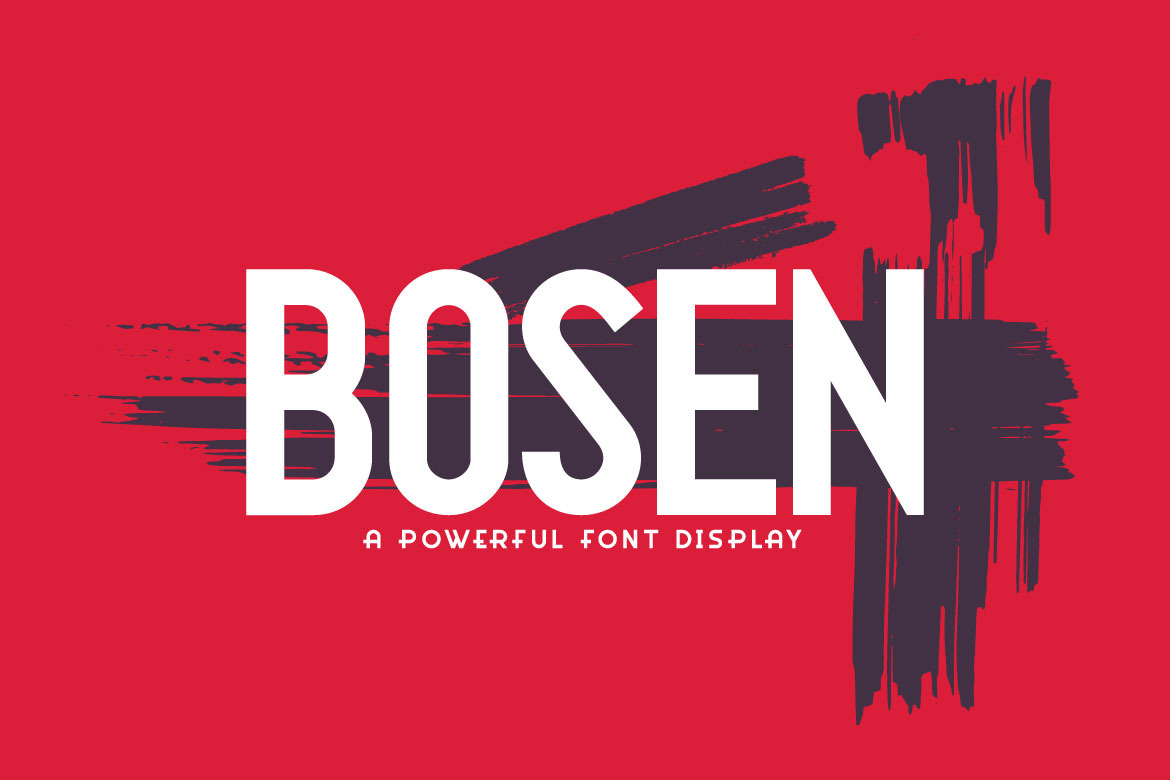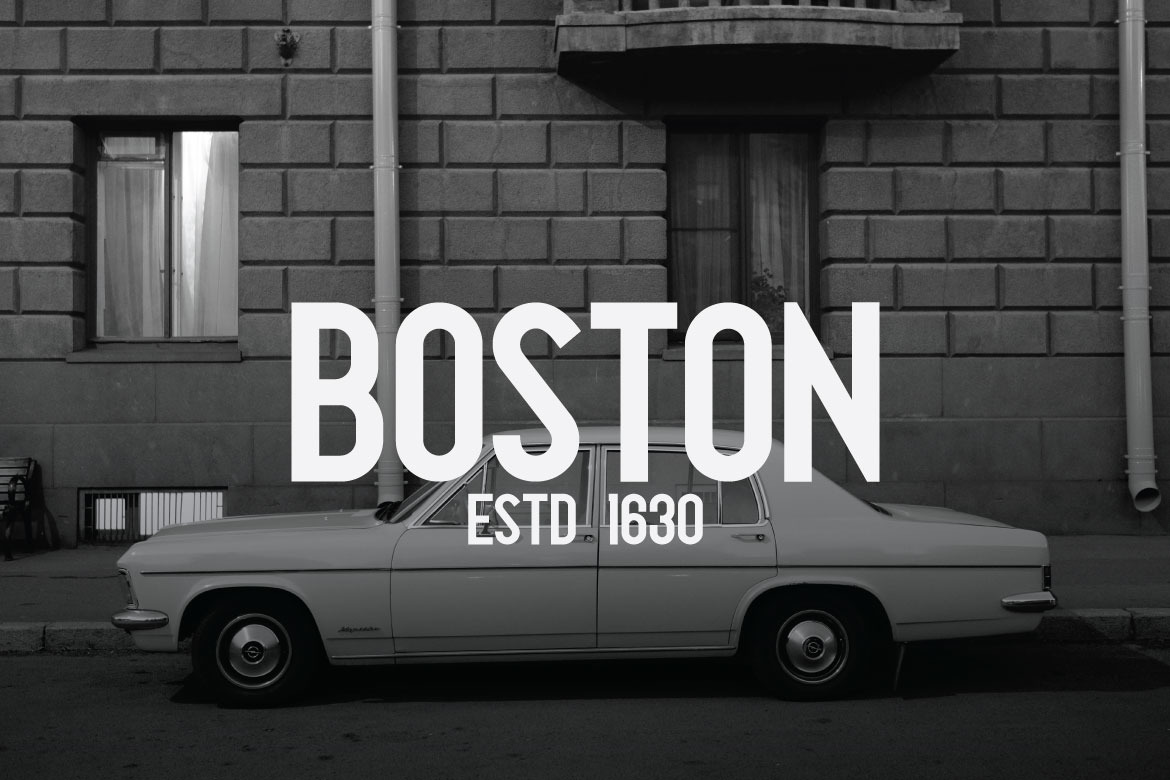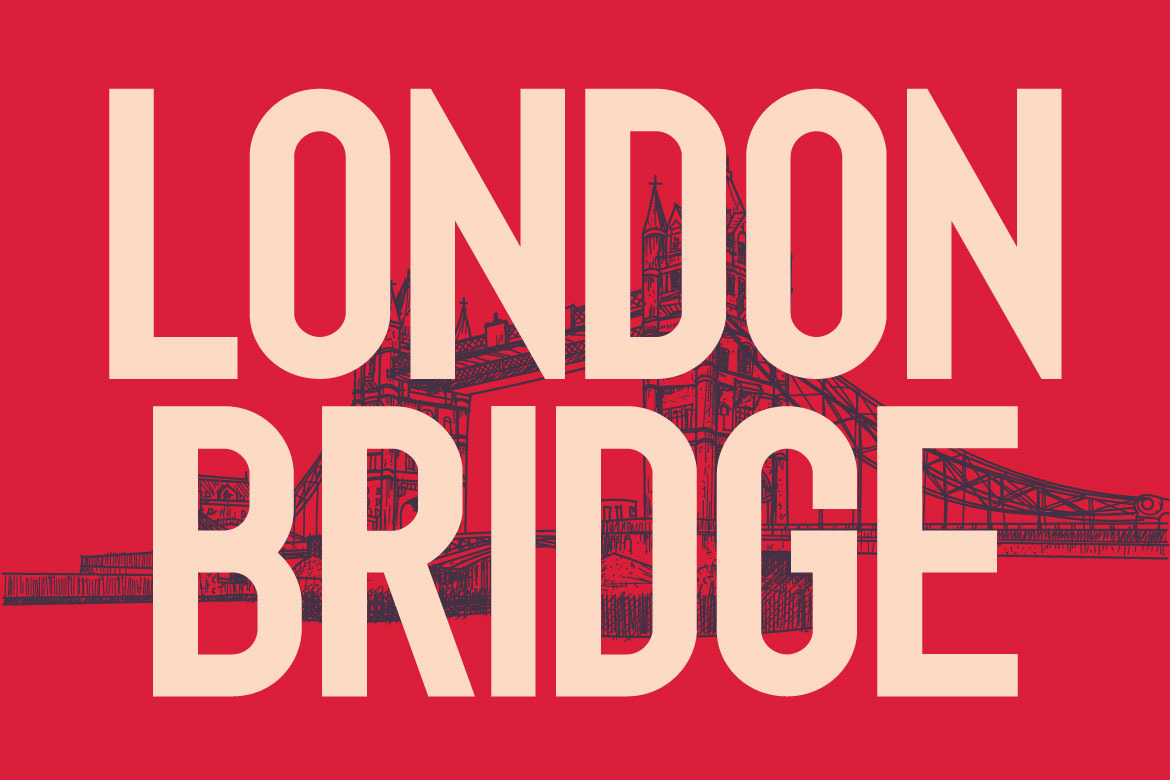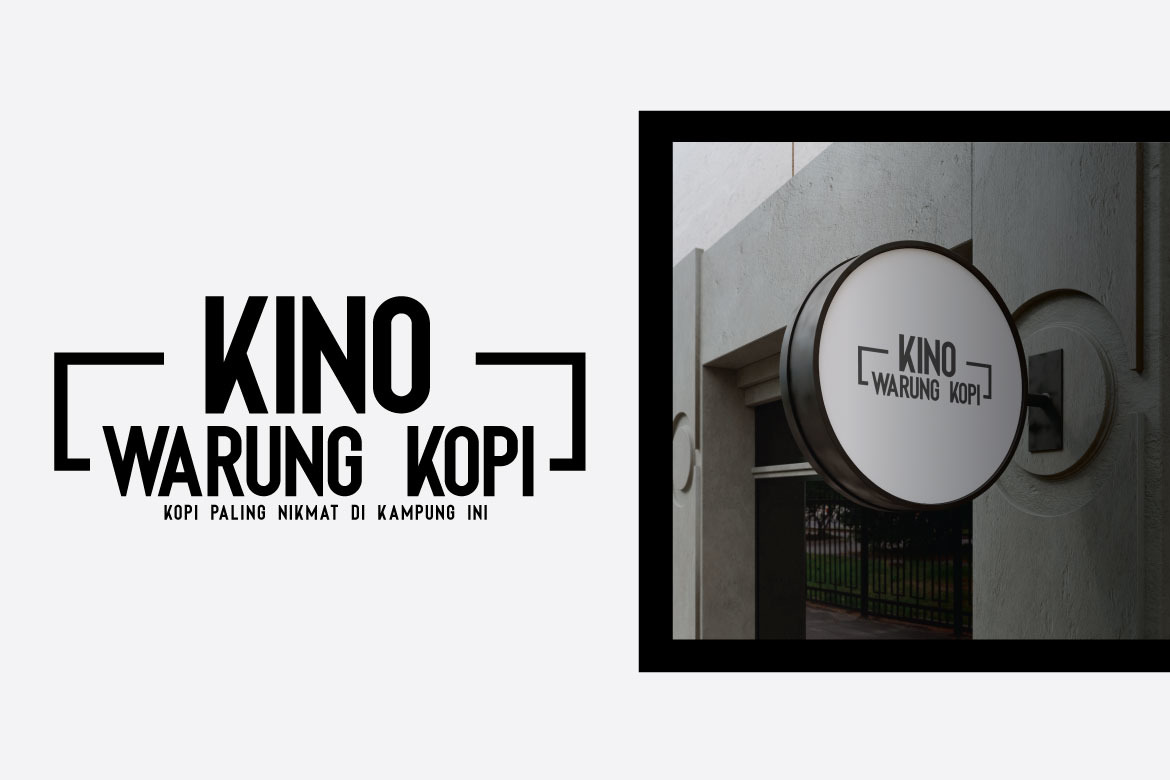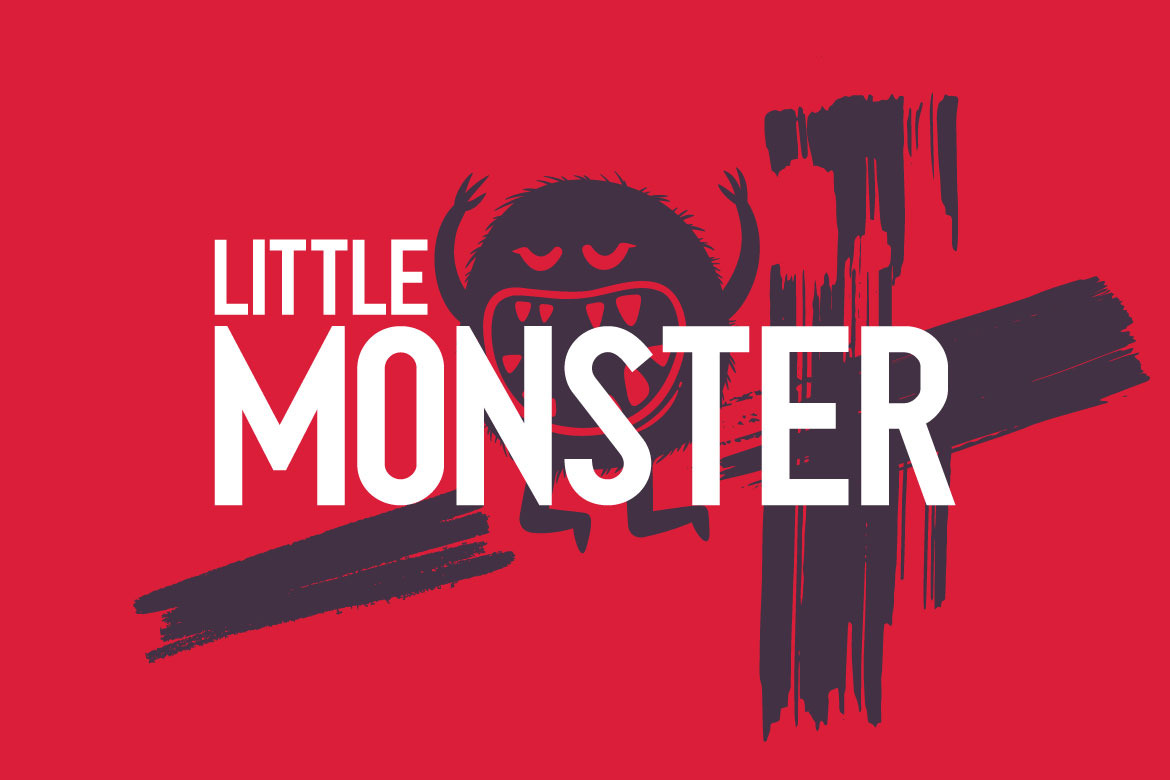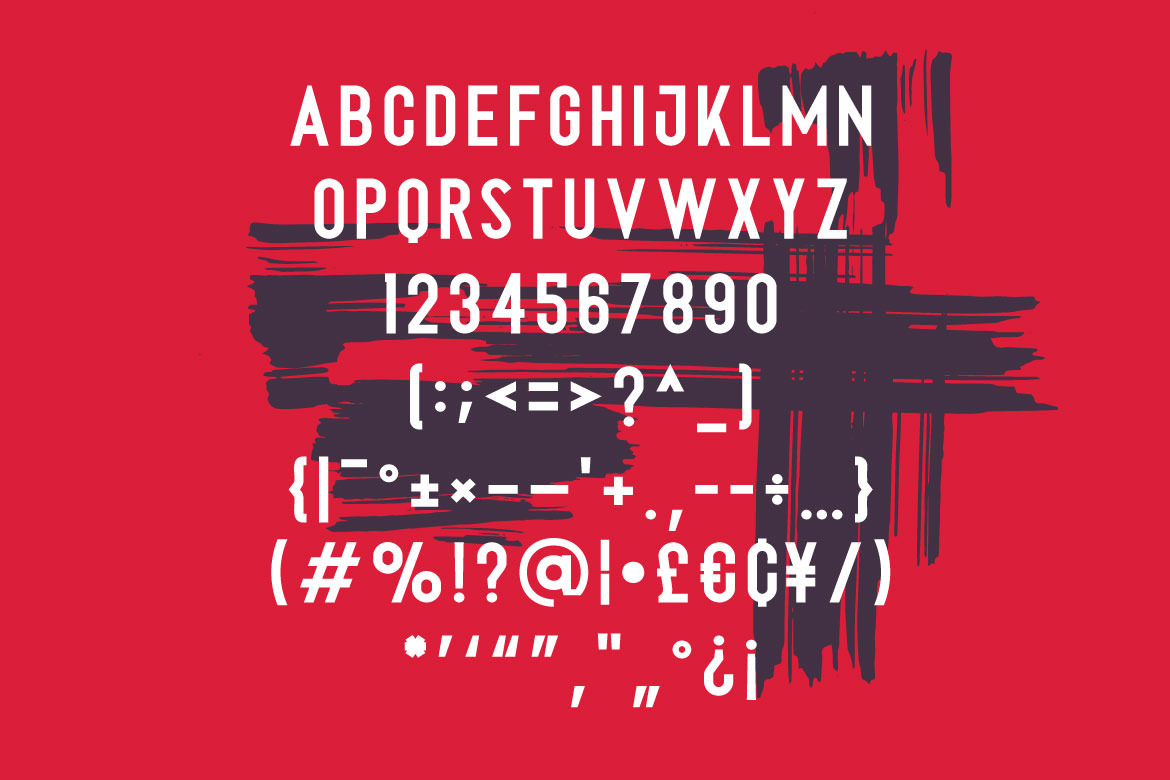
Bosen Font
Looks simple and charming. This is the reason why we want to offer you the Bosen font. This font gives a clean, strong and very elegant impression. This font is perfect for use as headlines, posters, titles, and other graphic designs.